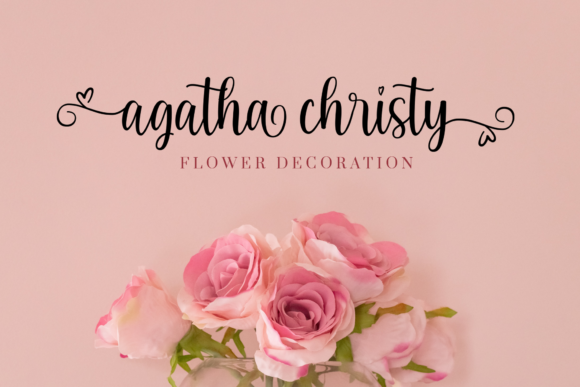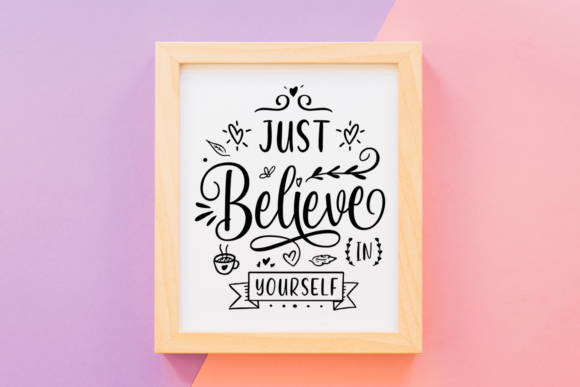
Peaceful Heart Font
db-ku.com - Script & Handwritten -- Peaceful Heart is a lovely font duo. It’s perfectly used to design quotes, invitations, crafts, logos and much more. Peaceful Heart comes with extra doodles for variation and combinations in your designs. This font is PUA encoded which means you can access all of the glyphs and swashes with ease!